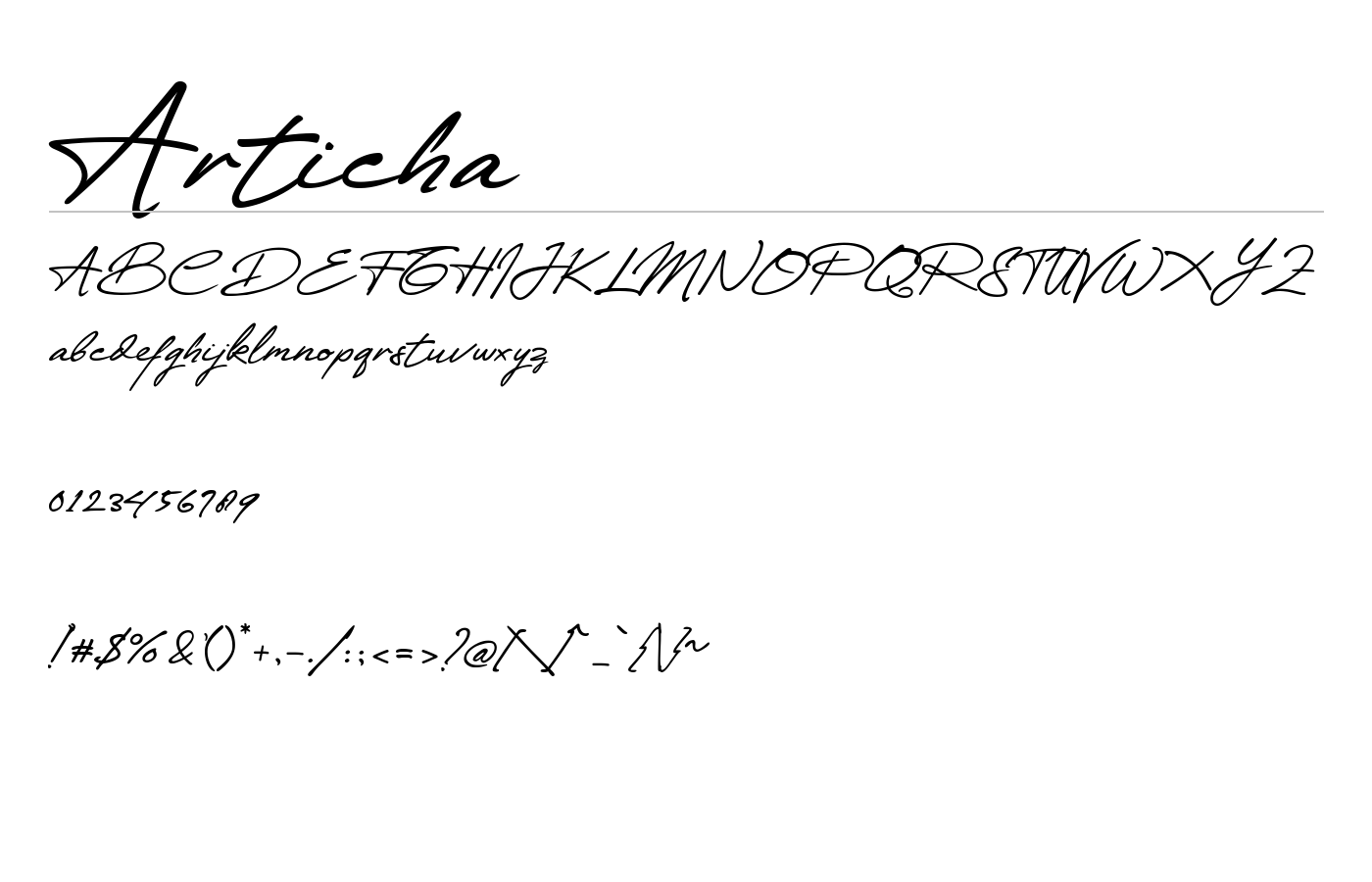
Articha is a refined script font with elegant, flowing strokes that mimic natural handwriting, featuring a light weight and a slightly narrow width. Its unique letterforms, such as the distinctive uppercase A and the looped lowercase characters, bring a personal and artistic touch, making it ideal for invitations, branding, and sophisticated editorial use. This font’s graceful style evokes a sense of creativity and charm, perfect for designs seeking a delicate yet expressive handwritten feel.
Articha Font
About Articha Font